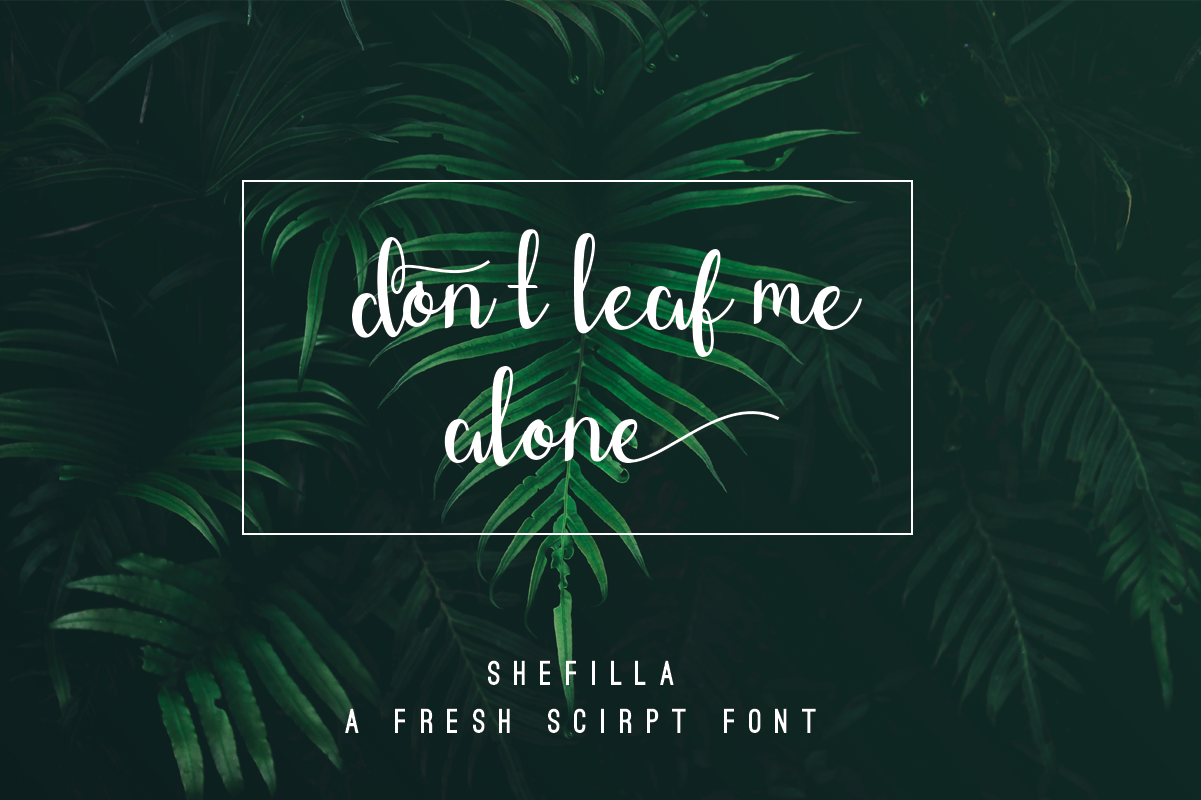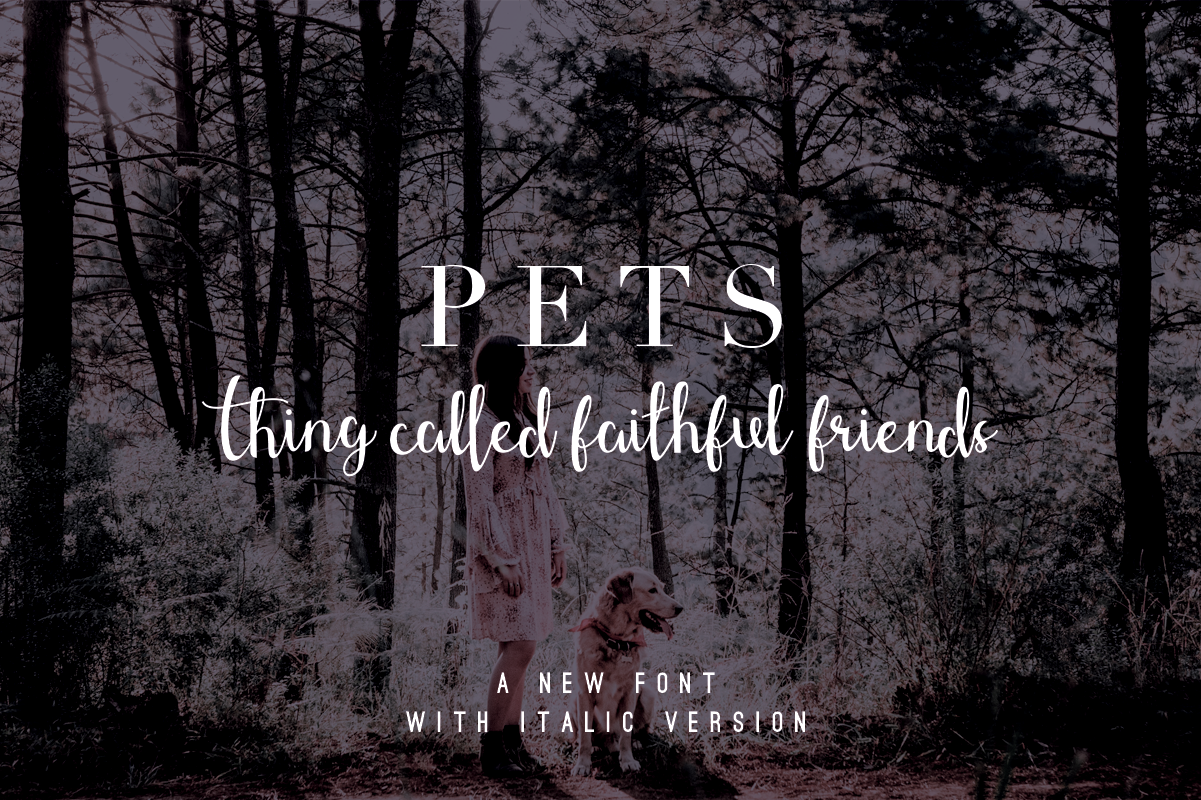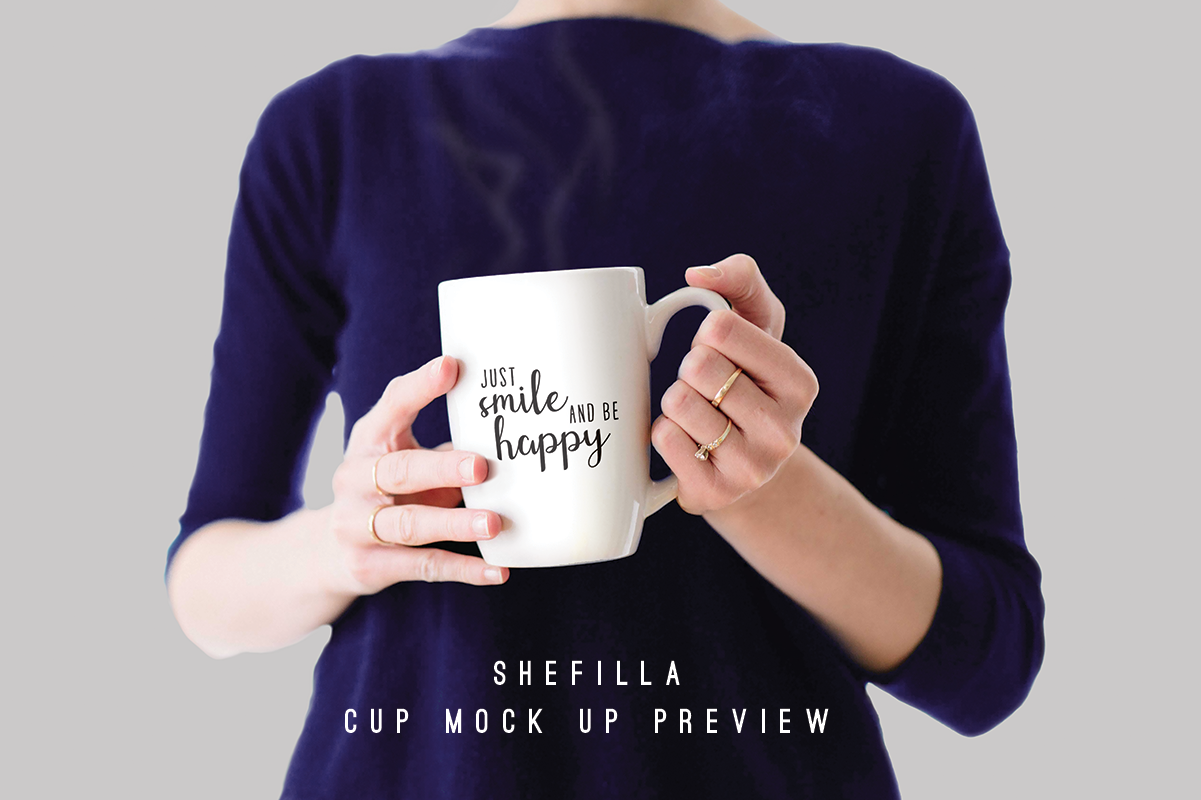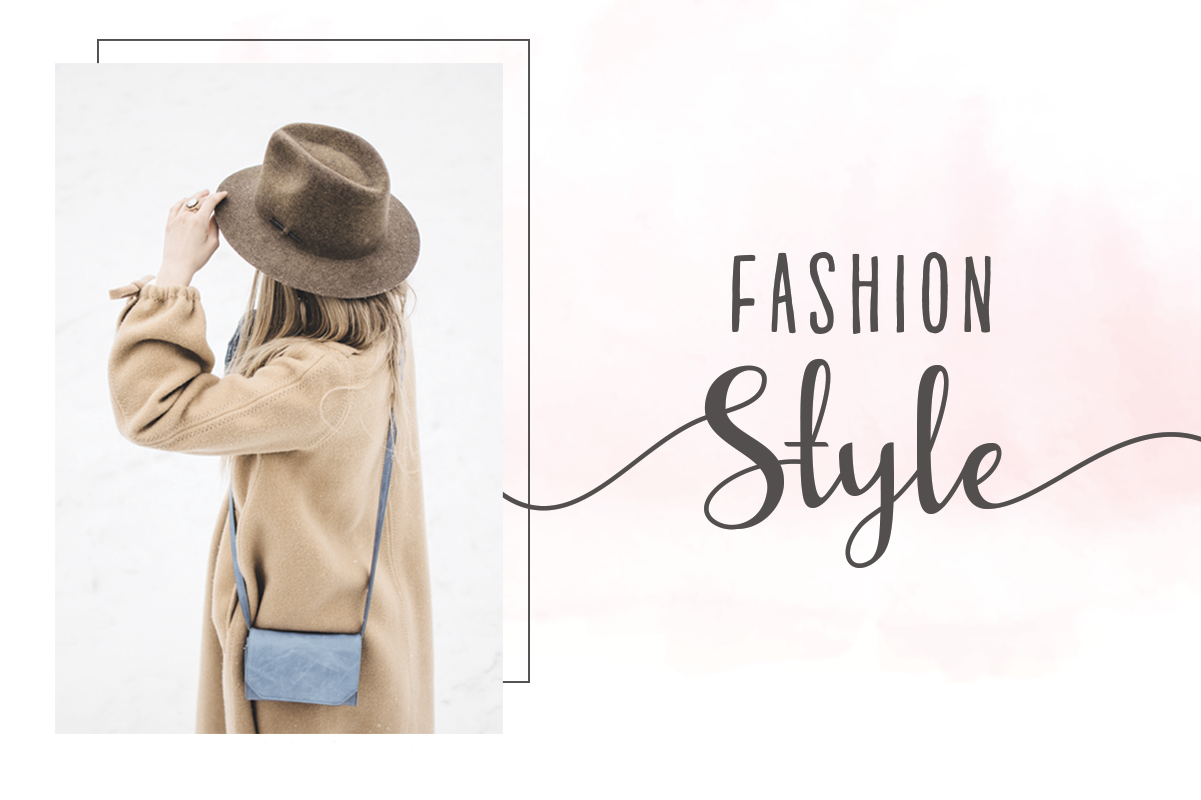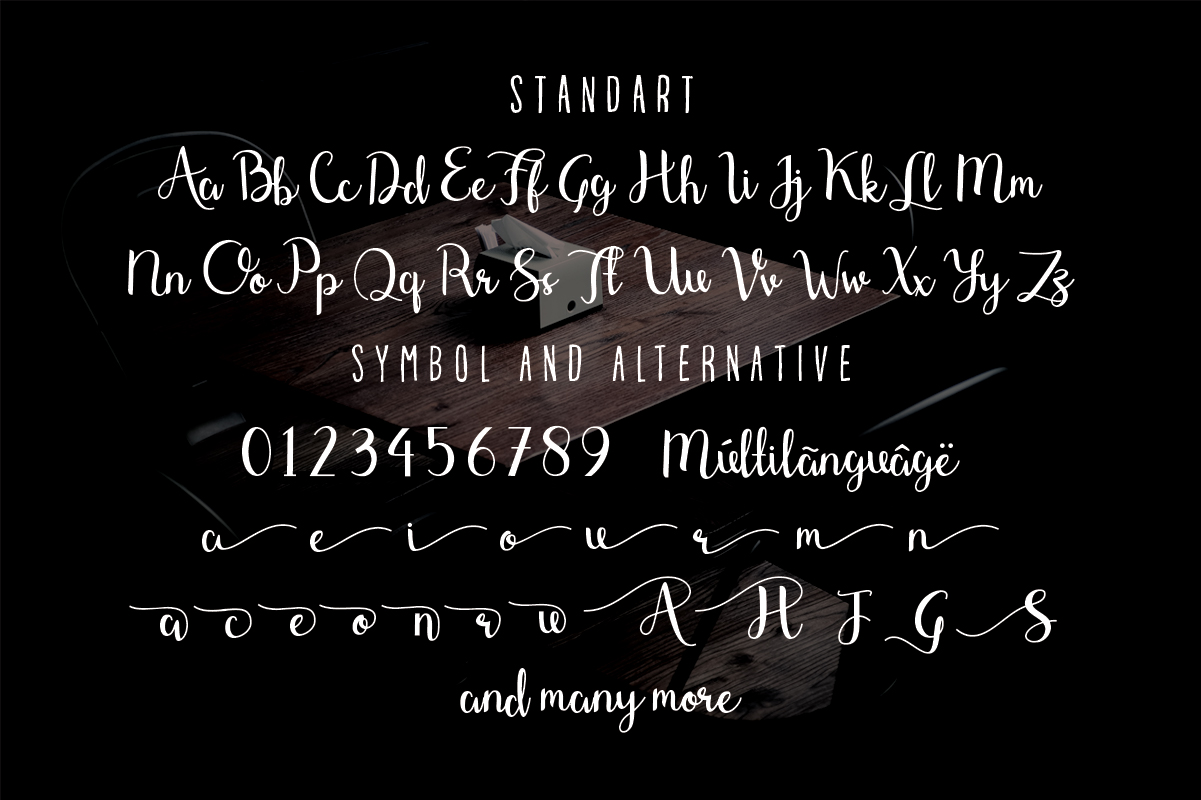
Shefilla Font
About Shefilla Font
Shefilla is a modern, fresh script that has a handwritten style. It looks and feel very elegant.
Shefilla comes in 2 variations: Regular & Italic.